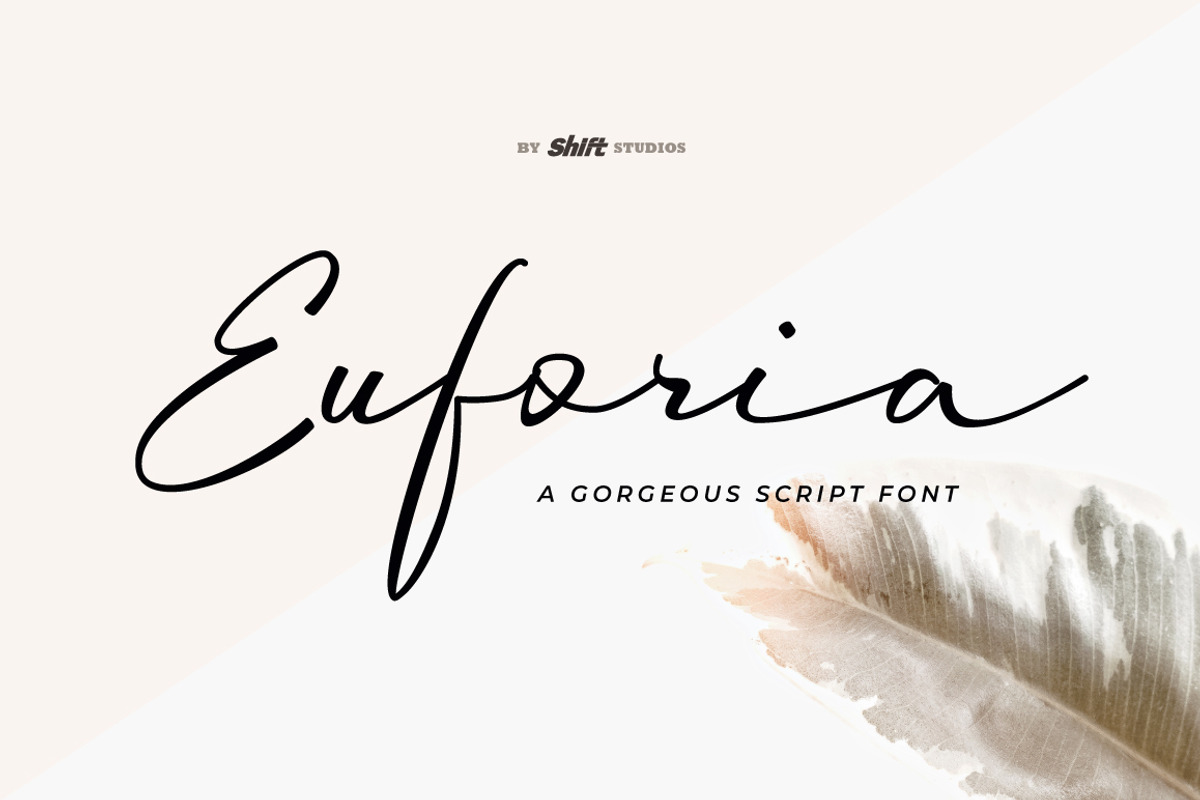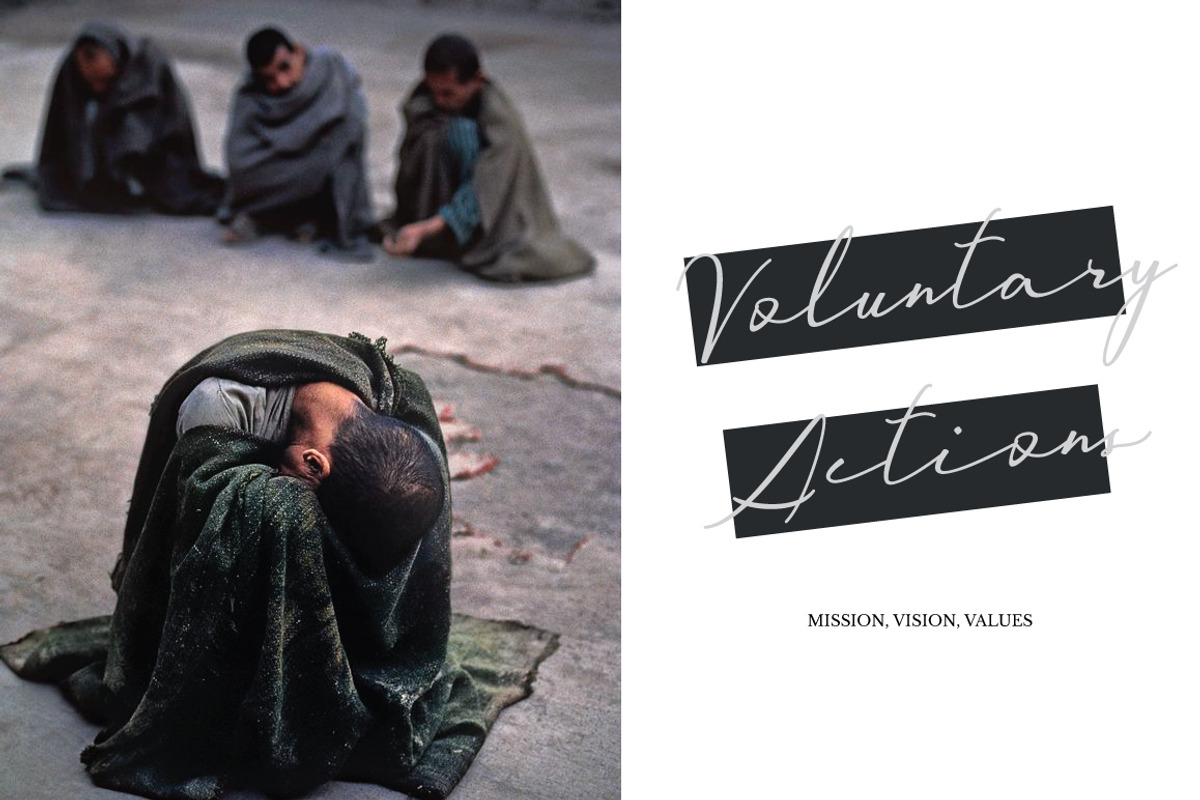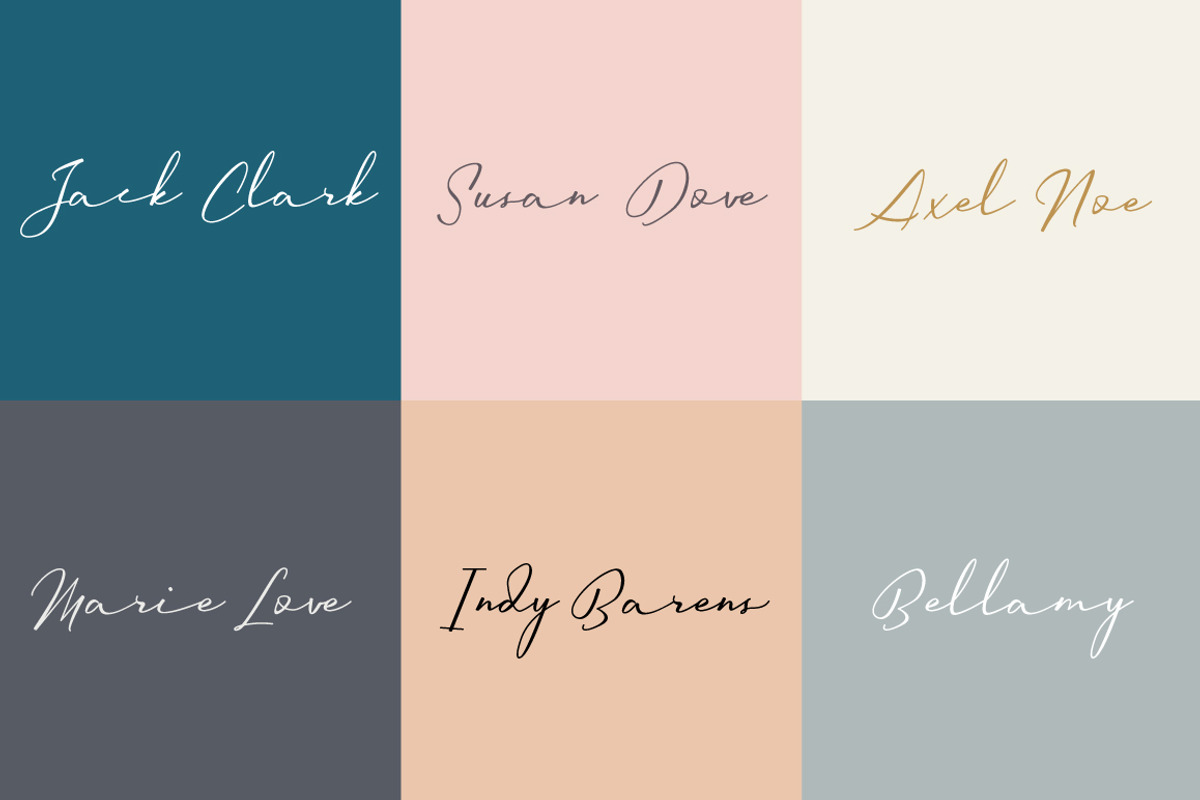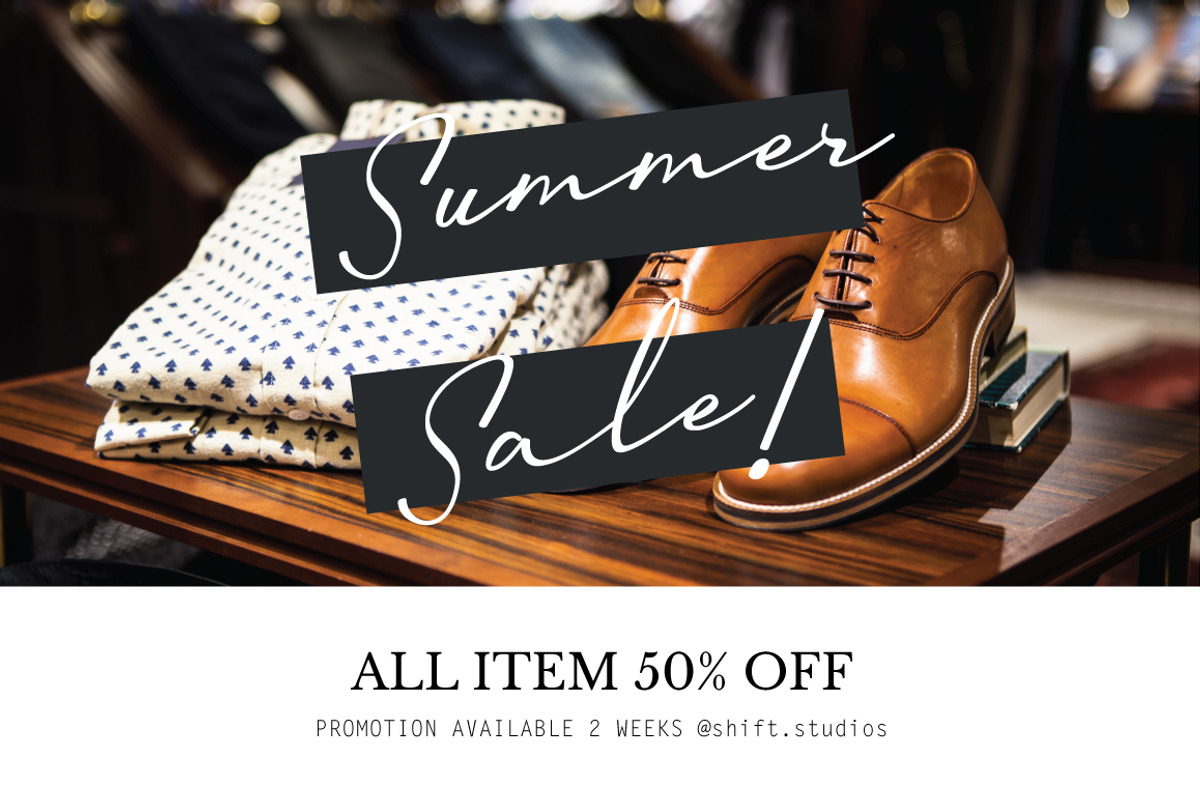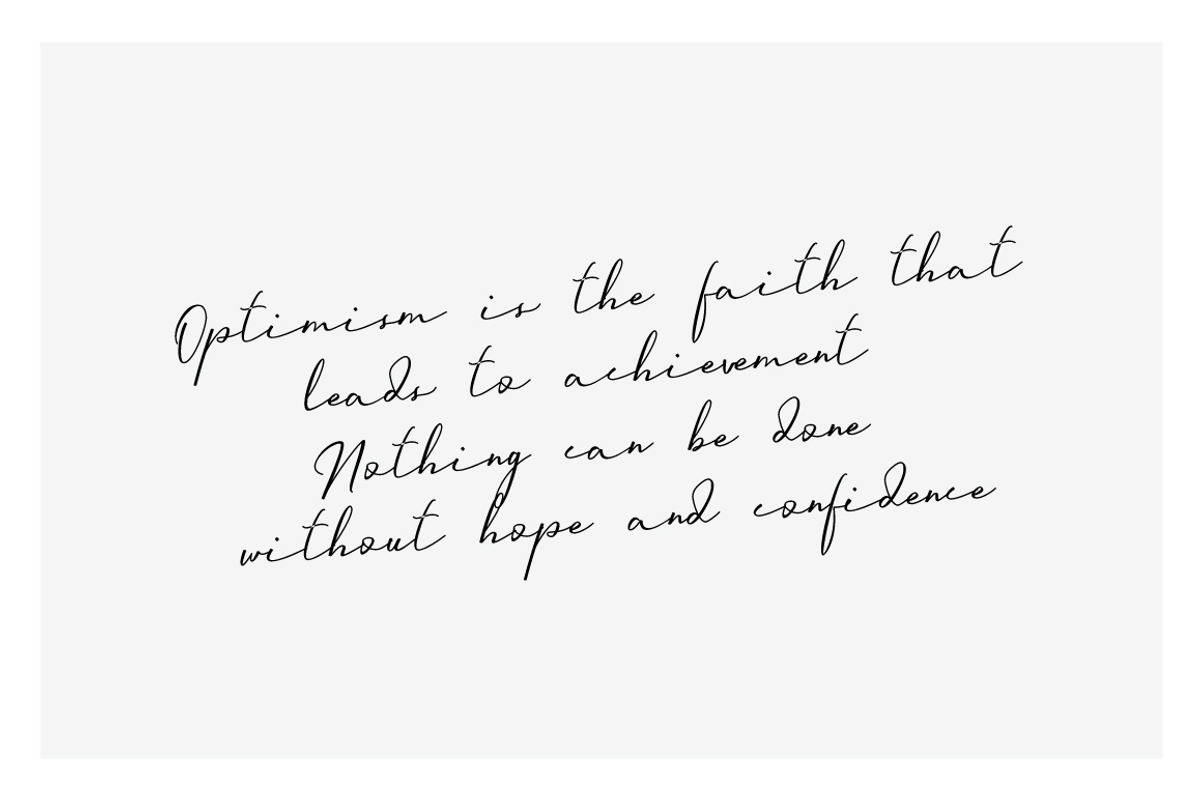
Euforia Typeface
Euforia font is aunique script style and handwriting font. This script font specifically established for beautiful and elegant handwriting looks and perfect also for your special branding.
Perfect for displays, headers, invitations, blogs, poster and so much more, Euforia will become a lively essential in your font collection!